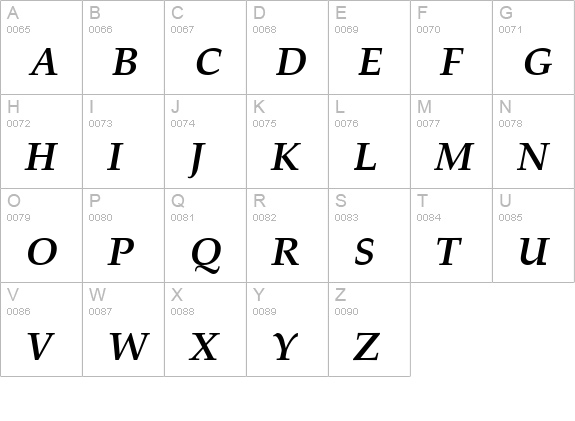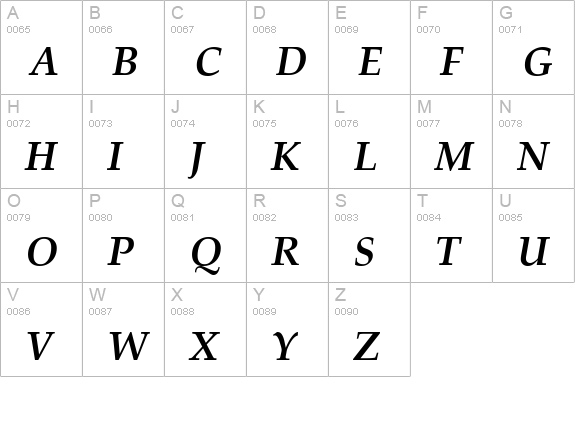
Palton BOLDITALIC Font Details
Introducing Palton BOLDITALIC, a font that exudes confidence and elegance with its bold and italic design. This stunning typeface is perfect for those looking to make a statement and stand out from the crowd. Palton BOLDITALIC is the epitome of sophistication, featuring sleek lines and impeccable curves that effortlessly capture attention. Its unique combination of boldness and italicized styling adds a touch of modernity and flair, making it an ideal choice for a variety of design projects. Whether you're designing a logo, creating eye-catching headlines, or crafting stylish invitations, Palton BOLDITALIC is sure to make a lasting impression. Its versatility allows it to seamlessly blend into any creative endeavor, elevating your work to new heights. But what sets Palton BOLDITALIC apart is not just its remarkable aesthetics; it's also the fact that it is freely available for download at FontsMarket.com. Yes, you read that right – this exceptional font can be yours at no cost. FontsMarket.com, the trusted source for premium fonts, presents Palton BOLDITALIC as a gift to the design community. Now, you can unleash your creativity without worrying about breaking the bank. With just a few clicks, you can access this remarkable font and bring your vision to life. So why wait? Embrace the power of Palton BOLDITALIC and take your designs to the next level. Discover the beauty of this font and experience the freedom to create without limitations. Download Palton BOLDITALIC today at FontsMarket.com and witness the transformative impact it can have on your work.